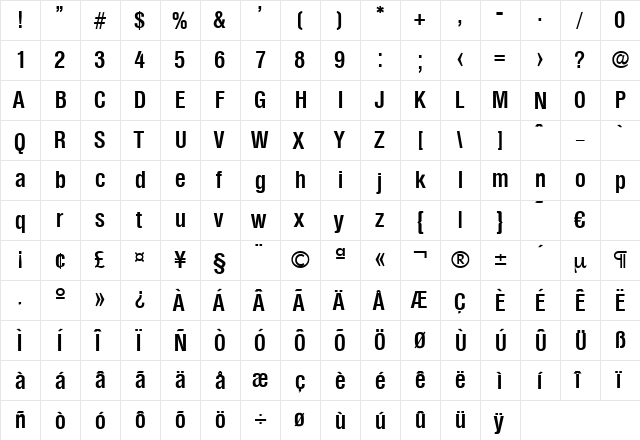
Olympia-DemiBoldCond Regular Font Preview
Olympia-DemiBoldCond Regular
Design Context for Olympia-DemiBoldCond Typeface
Olympia-DemiBoldCond is a composed and adaptable typeface that performs quietly and consistently across a wide range of design contexts. Its bold stroke weight gives it real presence on the page. The condensed width makes it efficient for tight spaces without sacrificing legibility.